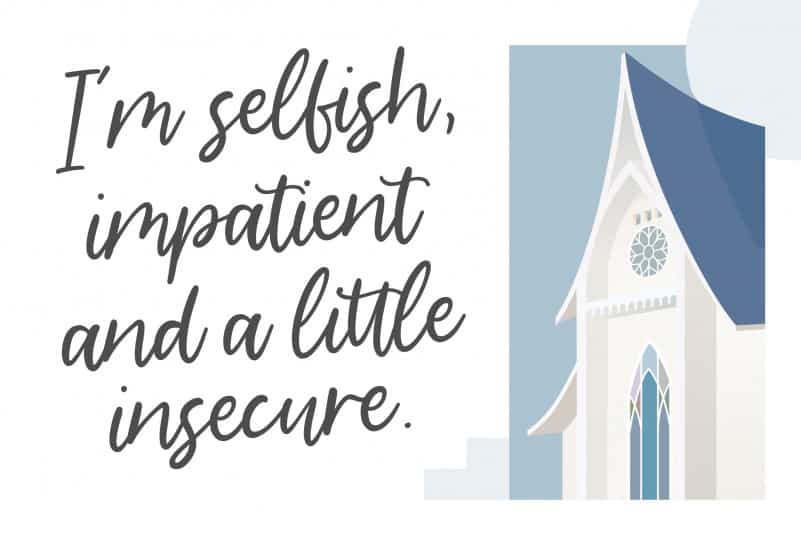
Barkeliy Lovely Handwritten Font
Proudly Present, Barkeliy Lovely Handwritten Font.
Barkeliy is a Lovely Modern Handwritten font.
Barkeliy is perfect for product packaging, branding project, megazine, social media, wedding, or just used to express words above the background.